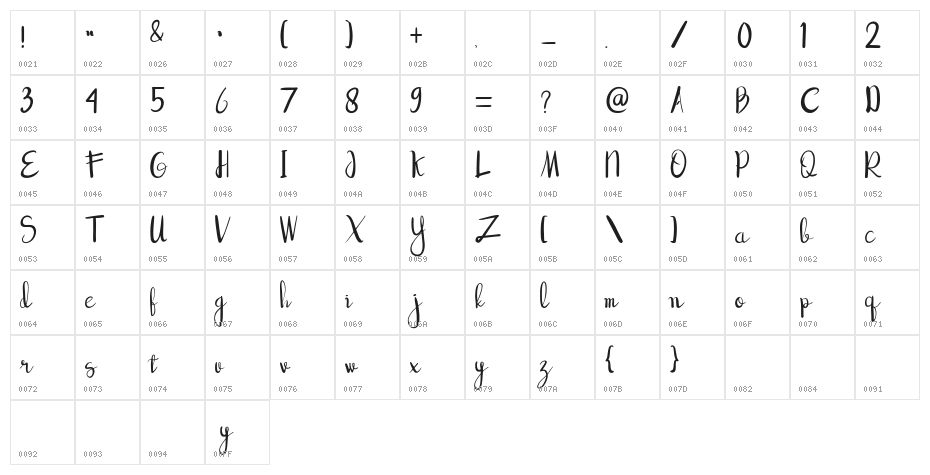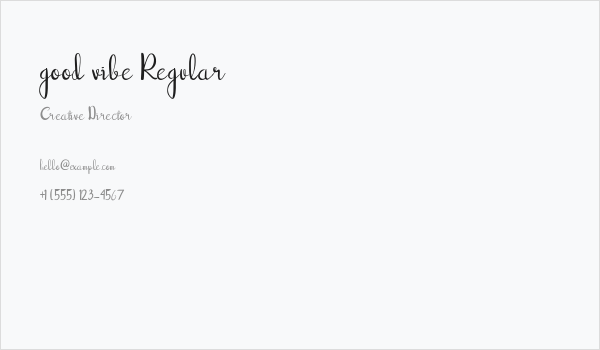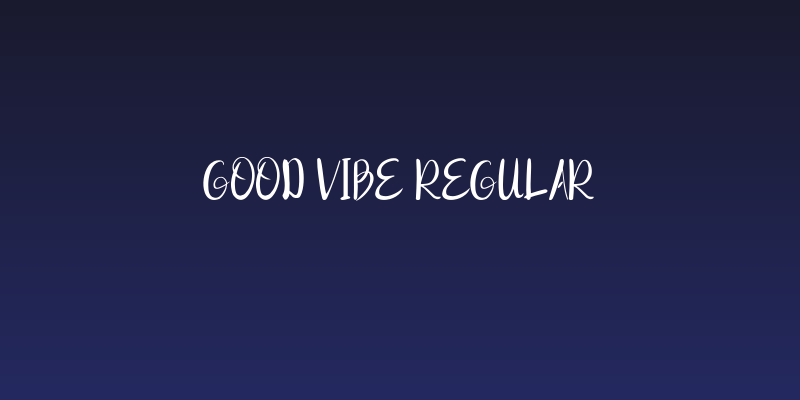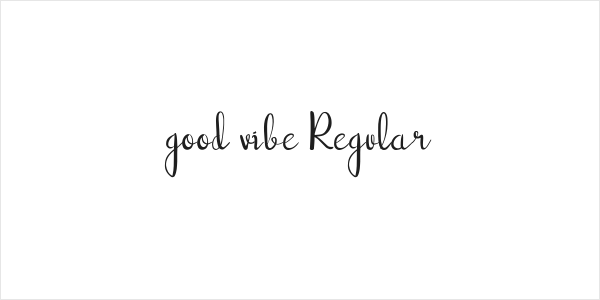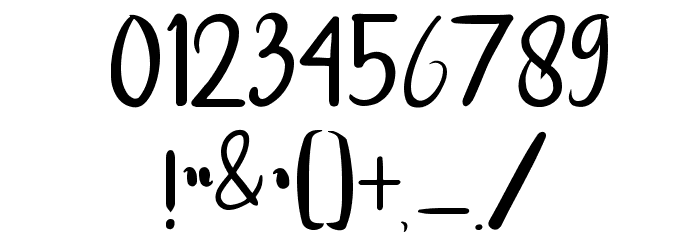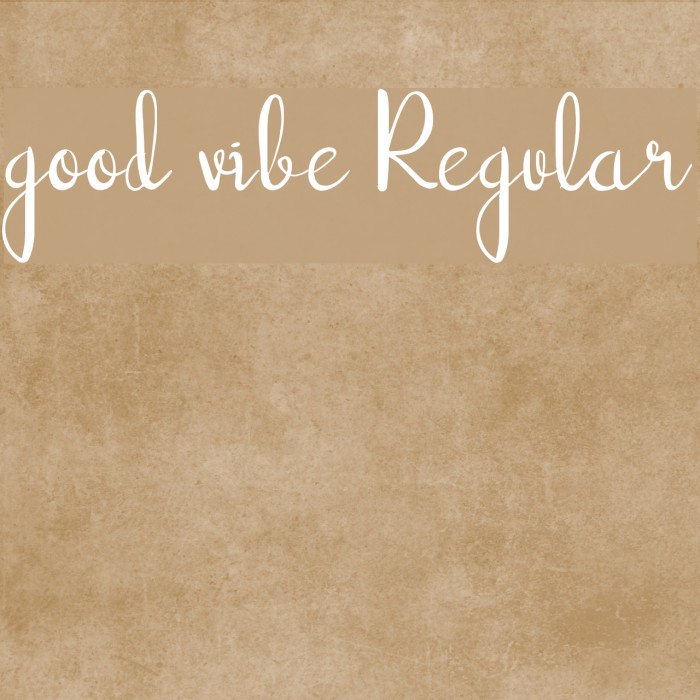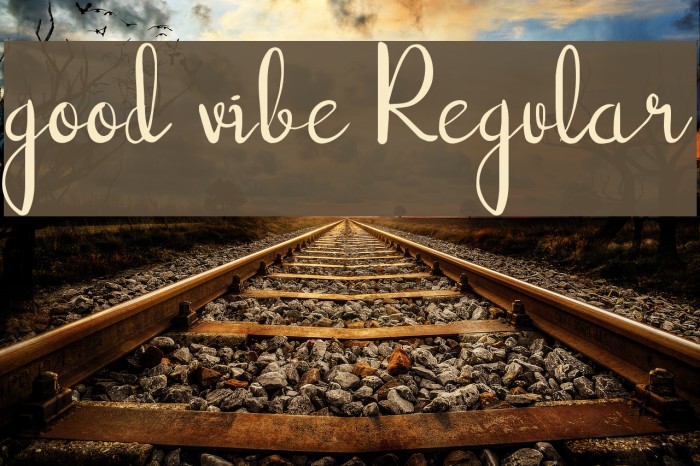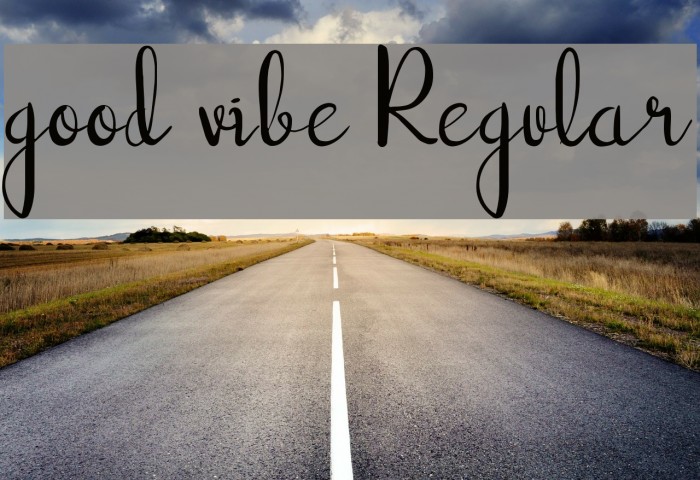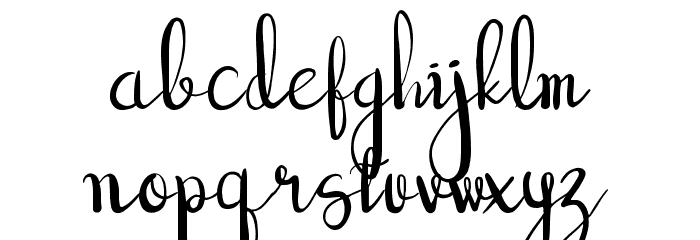
good vibe Regular Font
good vibe Regular Description
This font exudes a playful and whimsical charm, characterized by its flowing, handwritten style. The uppercase letters are bold and slightly irregular, giving them a lively and dynamic appearance. The lowercase letters are more delicate, with elegant loops and curves that add a touch of sophistication. The numerals are clear and easy to read, maintaining the playful aesthetic. Special characters are creatively designed, complementing the overall style. This font is perfect for projects that require a personal and friendly touch, such as invitations, greeting cards, or branding for creative businesses.
| Overall Style | Playful, Whimsical |
| Use Case | Headlines, Logos, Invitations |
| Proposed Projects | Invitations, greeting cards, creative branding, social media graphics. |